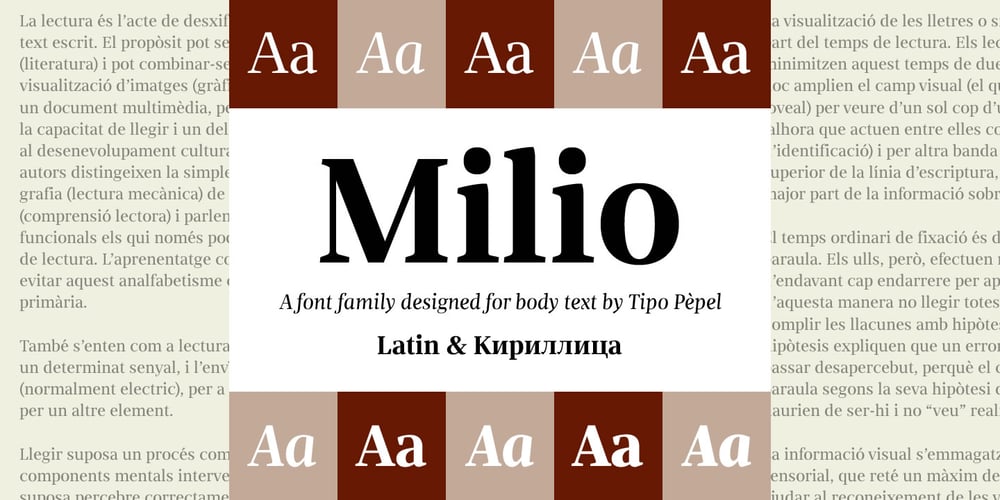
Milio Font Family was designed by Josep Patau Bellart and published by Tipo Pèpel. Milio contains 10 styles and family package options. Any typeface has two intrinsic elements that does´t work at the same levels, form and appearance. These peculiar visual behavior generate a wide range of graphics games. At reading level, we observe a uniform gray spot, but large bodies allows us to appreciate their shapes and counterforms. Milio takes this duality to offer unparalleled service in newsprint and magazine publishing, specially in small bodies but hard and formal cogency in titling. Its wide variety of weights, 10 in total, together with a slight condensation allows us to save space without losing legibility, even under poor printing conditions. Its basic quasi humanistic forms include support for a wide range of details that give great originality and strength. A friendly appearance, but a strong, all-road typeface with internal forms that reinforced visibility in small sizes thanks to its high average eye and the contrast that generates its soft curved external and internal squared angles. The nuances here are fundamental and explain its powerful large sizes, where you can see these contrasts between the curved, organic, humanistic, and straight, angled, almost mechanical shapes. Milio has the bonus of a large multilingual support for all alphabets based on the Latin and Cyrillic, as well as large Opentype features for expert users, among which we have true small caps, ligatures and automatic contextual alternates. Several sets of numerals for use on tables and other “delicatessen” as fractions are also included. Having in mind the daily struggle in newspaper and magazines´ edition, Milio has been designed with the idea of being Cinta´s perfect couple, a similar contrast and proportion typographic san serif family produced by the same Foundry as Milio, to cover almost all the graphic needs in actual DTP.